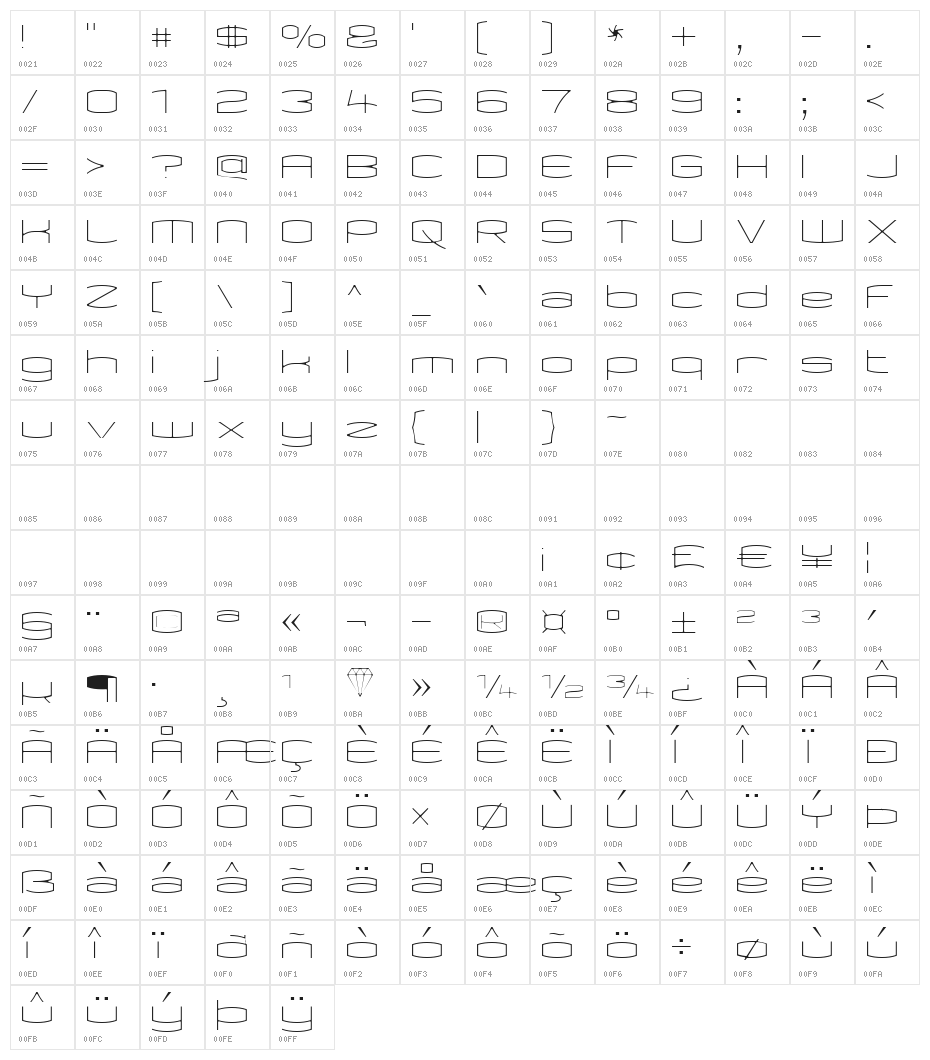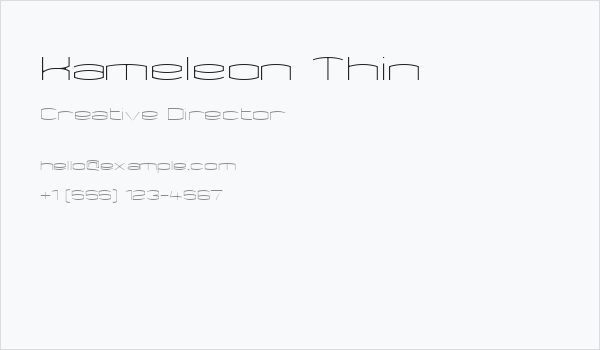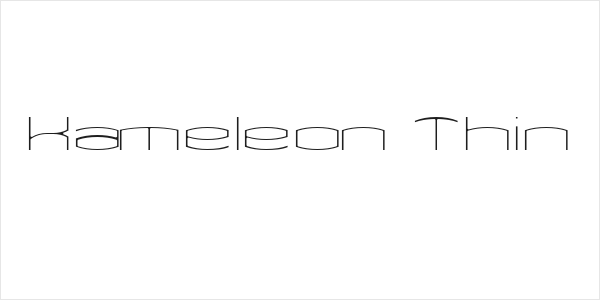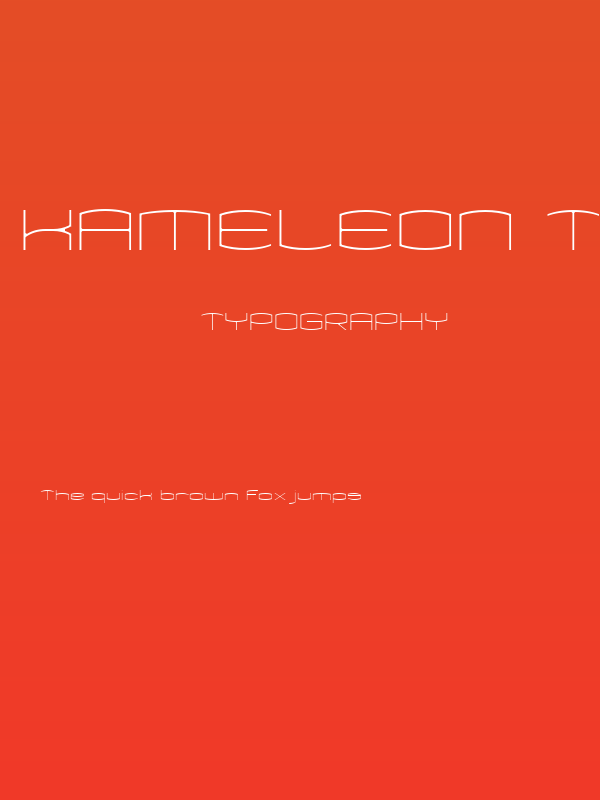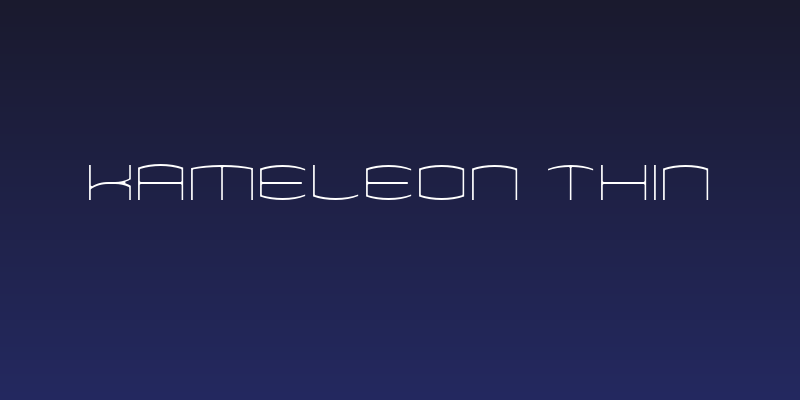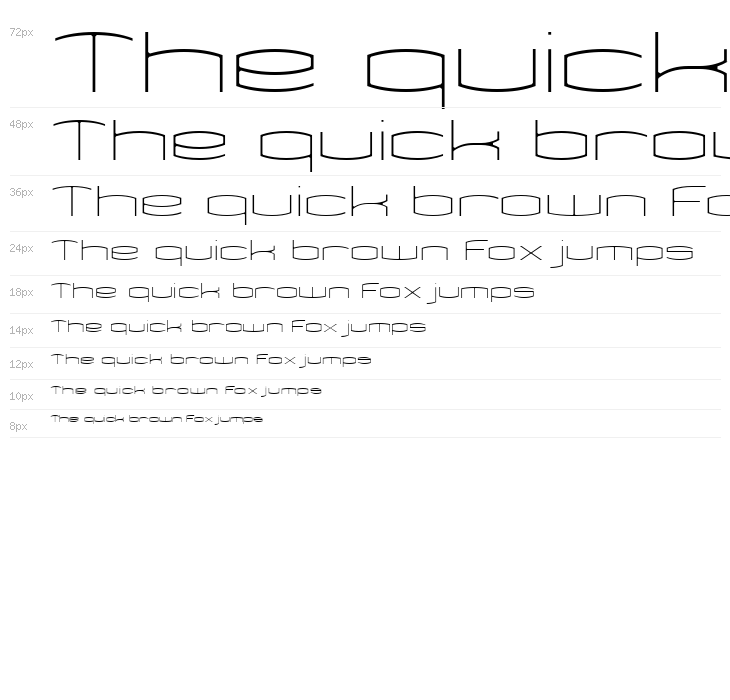
Kameleon Thin Font
Kameleon Thin Description
This font features a sleek, ultra-thin design with a futuristic and minimalist aesthetic. The characters are composed of clean, straight lines and subtle curves, giving it a modern and sophisticated look. The uppercase letters have a uniform height, while the lowercase letters maintain a consistent style with slightly rounded edges. The numerals are distinct and easy to read, matching the overall geometric theme. Special characters are designed with the same thin strokes, ensuring a cohesive appearance across all glyphs. This font's airy and open structure makes it ideal for projects that require a contemporary and elegant touch.
| Proposed Projects | Ideal for tech branding, modern web design, minimalist posters, and futuristic interfaces. |